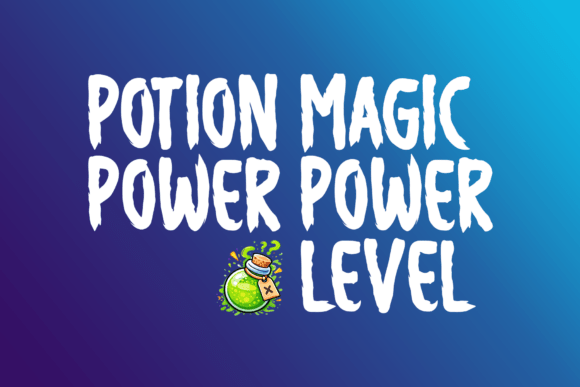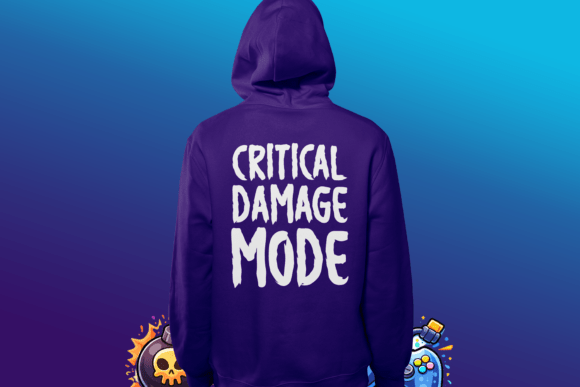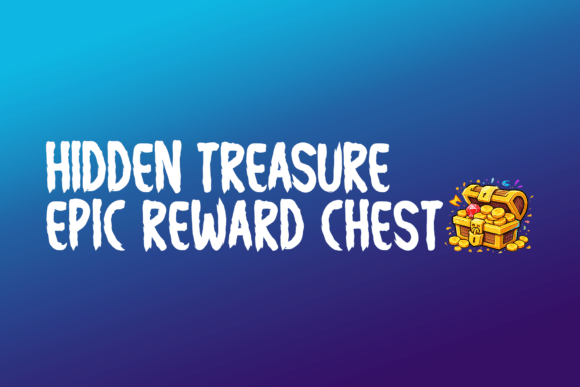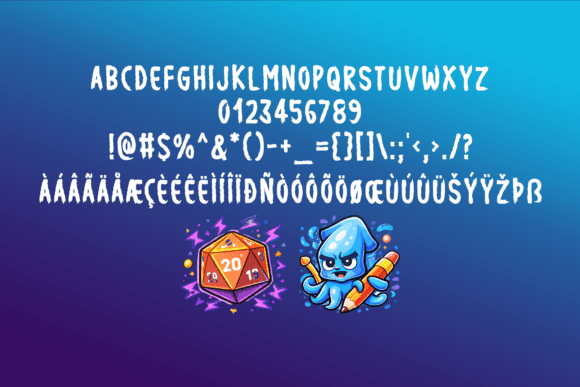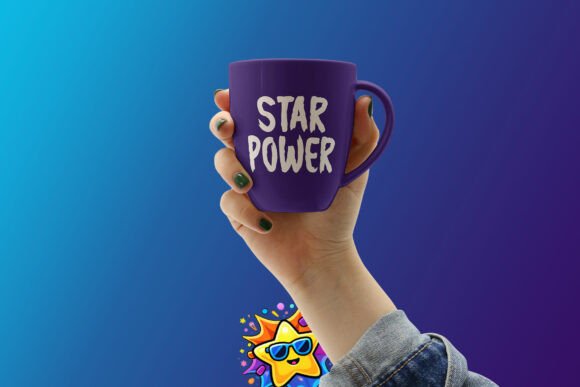
Introduction to Hero Blade Font
Hero Blade is a bold and playful display font inspired by the exciting world of games, fantasy adventures, and heroic quests.
Its hand-drawn shapes and energetic strokes create a lively personality that instantly grabs attention The slightly rough edges and cartoon-style forms give the font a unique gaming vibe, perfect for game titles, posters, kids’ designs, and creative projects.
Key Features of Hero Blade Font